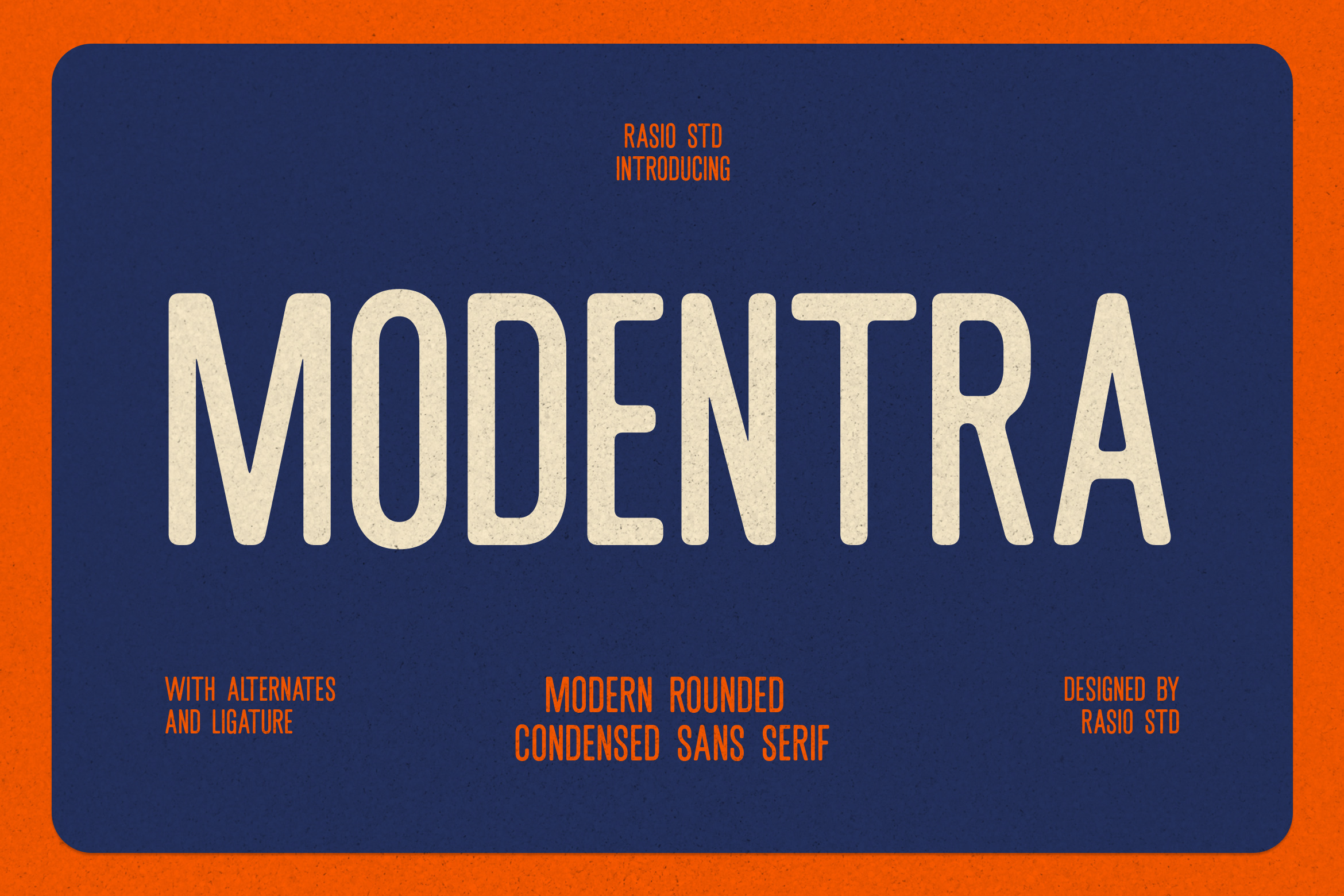
Modentra Modern Rounded Sans Font
Modentra is a modern rounded condensed sans serif font designed to deliver bold presence with a friendly and contemporary feel. Featuring smooth curves, narrow proportions, and balanced stroke weight, this font offers excellent readability while maintaining strong visual impact.
Modentra is highly relevant for modern visual communication that requires strong headlines without losing warmth and readability. Its condensed and rounded structure works perfectly in packaging designs, café menus, posters, brand identities, editorial covers, and promotional materials where space efficiency and bold expression are essential
- Modern condensed sans serif structure with rounded proportions
- Softened corners and smooth curves that enhance legibility at large display sizes
- Balanced stroke weight with consistent vertical rhythm for a clean and stable look
- Compact letterforms designed for space-efficient layouts and strong visual impact
- Carefully tuned spacing to maintain clarity in headlines, packaging, and poster designs
- Brand identity systems that require bold, modern, and distinctive typography
- Coffee shops, food & beverage branding, menus, and packaging designs
- Posters, headlines, and promotional materials with strong visual impact
- Editorial covers and layout titles with a modern-retro aesthetic
- Social media graphics, advertising creatives, and marketing campaigns
Modentra delivers modern strength and standout impact